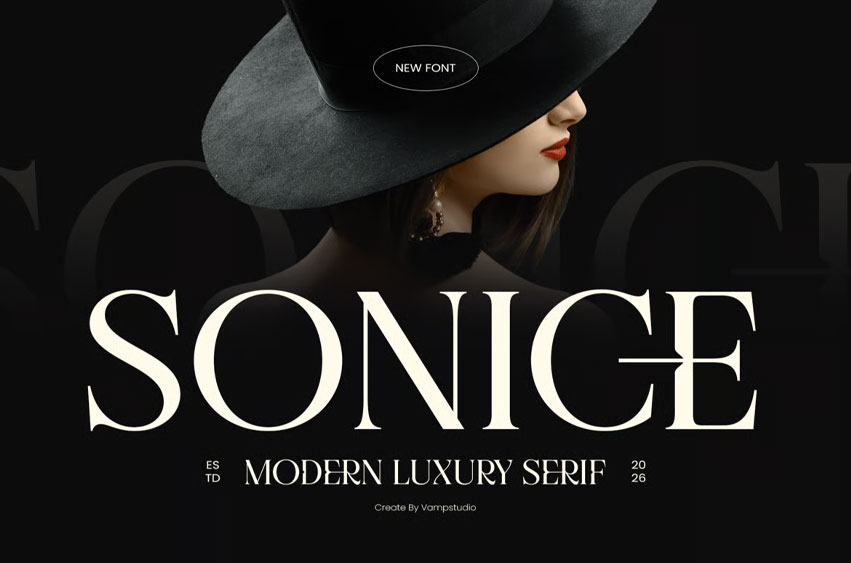
Sonice Font
Sonice Font is a luxury modern serif font crafted with elegant contrast, sophisticated curves, and refined stylistic alternates. Designed to deliver a premium editorial feel, Sonice blends classic serif beauty with contemporary fashion typography.
This font is perfect for luxury branding, high-end logos, magazines, beauty packaging, wedding invitations, brand campaigns, social media content, and elegant advertising layouts. The graceful letterforms and unique alternates create stunning typography compositions that instantly elevate any design.
Sonice works beautifully for both large display headlines and stylish branding applications, giving your projects a timeless and classy visual identity.
• Elegant Modern Serif Style
• Stylish Alternates & Ligatures
• Uppercase & Lowercase Characters
• High Contrast Luxury Letterforms